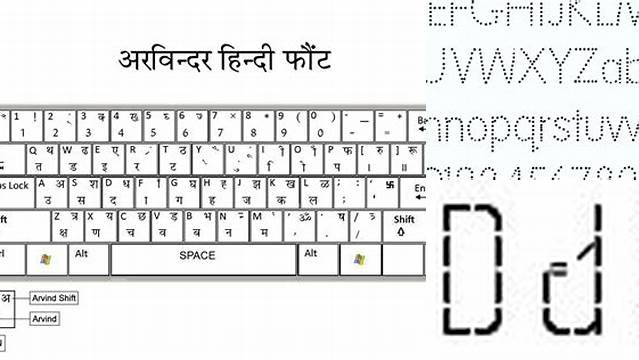
Arvind Dotted Normal Font: Free Download & Uses
Are you on the hunt for the Arvind Dotted Normal font free download? Well, you've landed in the right spot, guys! This guide is your one-stop-shop for everything you need to know about this fantastic font, why it's so popular, and how you can get your hands on it without spending a dime. We're going to dive deep into its uses, its unique characteristics, and even some alternatives if you're feeling adventurous. So, buckle up and let's get started!
What Makes Arvind Dotted Normal Font So Special?
First off, let's talk about why the Arvind Dotted Normal font has captured the hearts of designers and creatives alike. This font isn't just another typeface; it's a unique blend of simplicity and distinctiveness that makes it stand out in a sea of fonts. The dotted style gives it a playful yet professional vibe, making it incredibly versatile for a wide range of projects. Whether you're working on branding materials, educational resources, or even creative art projects, this font adds a touch of character that's hard to ignore.
The beauty of the Arvind Dotted Normal font lies in its readability. Despite the dotted design, the letters remain clear and easy to read, which is crucial for any font aiming for widespread use. This readability makes it a fantastic choice for both print and digital media. Imagine using it for headings, body text, or even logos – the possibilities are endless! The font's clean lines and balanced spacing ensure that your message gets across without any visual clutter. It’s this balance that makes it a go-to choice for designers who want something that’s both eye-catching and functional.
Another key aspect of its appeal is its ability to evoke a sense of modernity and innovation. The dotted style gives it a tech-forward feel, making it suitable for projects related to technology, education, or even children's products. It's not just about aesthetics; it's about the message the font conveys. When you choose Arvind Dotted Normal, you're choosing a font that speaks of creativity, precision, and a forward-thinking approach. And let's be real, in today's design landscape, standing out with a unique font can make all the difference.
Moreover, the Arvind Dotted Normal font is incredibly adaptable. It pairs well with a variety of other fonts, allowing you to create diverse and engaging designs. Whether you're looking to create a minimalist design or something more elaborate, this font can seamlessly fit into your vision. It's this versatility that makes it a staple in many designers' toolkits. You can use it for anything from website headers to business cards, and it will always deliver a professional and stylish look. The font's adaptability also extends to different design styles, making it suitable for both formal and informal projects. This means you can use it for a wide range of purposes, from official documents to creative marketing materials.
One of the first places you might want to check is reputable font websites. There are several websites out there that offer a wide selection of free fonts, and they often have a rigorous vetting process to ensure the fonts are safe and legal to use. Sites like FontSpace, DaFont, and Google Fonts are great starting points. These platforms have a massive library of fonts, and you can usually filter your search by license type to ensure you're only looking at fonts that are free for commercial use. When you're browsing these sites, make sure to read the licensing information carefully. Some fonts might be free for personal use but require a license for commercial projects. It's always better to be safe than sorry!
Another fantastic resource is Google Fonts. Google Fonts is a treasure trove of open-source fonts, and the best part is that they're all completely free to use, even for commercial projects. The fonts on Google Fonts are also optimized for web use, so they'll load quickly and look great on any device. This is a huge advantage if you're planning to use the Arvind Dotted Normal font on your website. Plus, Google Fonts integrates seamlessly with many design tools and platforms, making it super easy to incorporate the font into your projects. If you’re looking for a reliable and hassle-free way to get your hands on free fonts, Google Fonts should be one of your first stops.
Apart from these big players, there are also smaller font foundries and independent designers who offer free fonts on their websites. These hidden gems can be a great source of unique and high-quality fonts. To find these, you might need to do a bit of digging, but it's often worth the effort. Try searching for font blogs or design communities where designers share their favorite resources. You might stumble upon a designer who's offering the Arvind Dotted Normal font or a similar dotted font for free on their personal website. Just make sure to do your due diligence and check the designer's credentials before downloading anything. Look for reviews or testimonials to ensure they're a legitimate source.
So, there you have it, guys! Everything you need to know about the Arvind Dotted Normal font free download and its alternatives. We've covered what makes this font so special, where to find it (or similar ones) for free, how to use it effectively in your projects, and even some fantastic alternatives to consider. Remember, typography is a powerful tool in design, and choosing the right font can make all the difference. Whether you stick with Arvind Dotted Normal or explore other dotted fonts, we hope this guide has given you the inspiration and knowledge you need to create amazing designs. Happy designing!